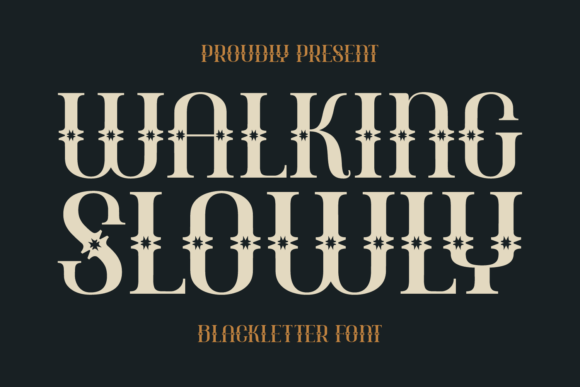
Walking Slowly
Finding the right design elements can be challenging, but Walking Slowly offers an exceptional collection that elevates your work instantly.